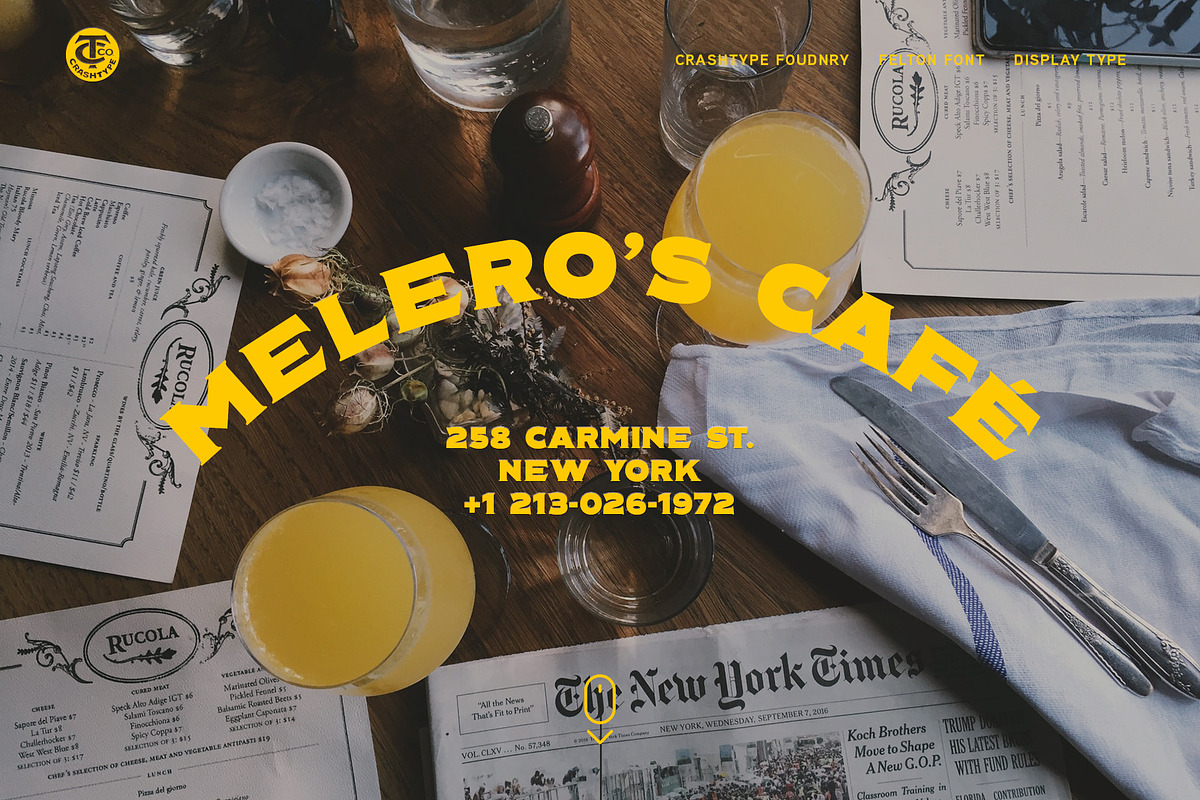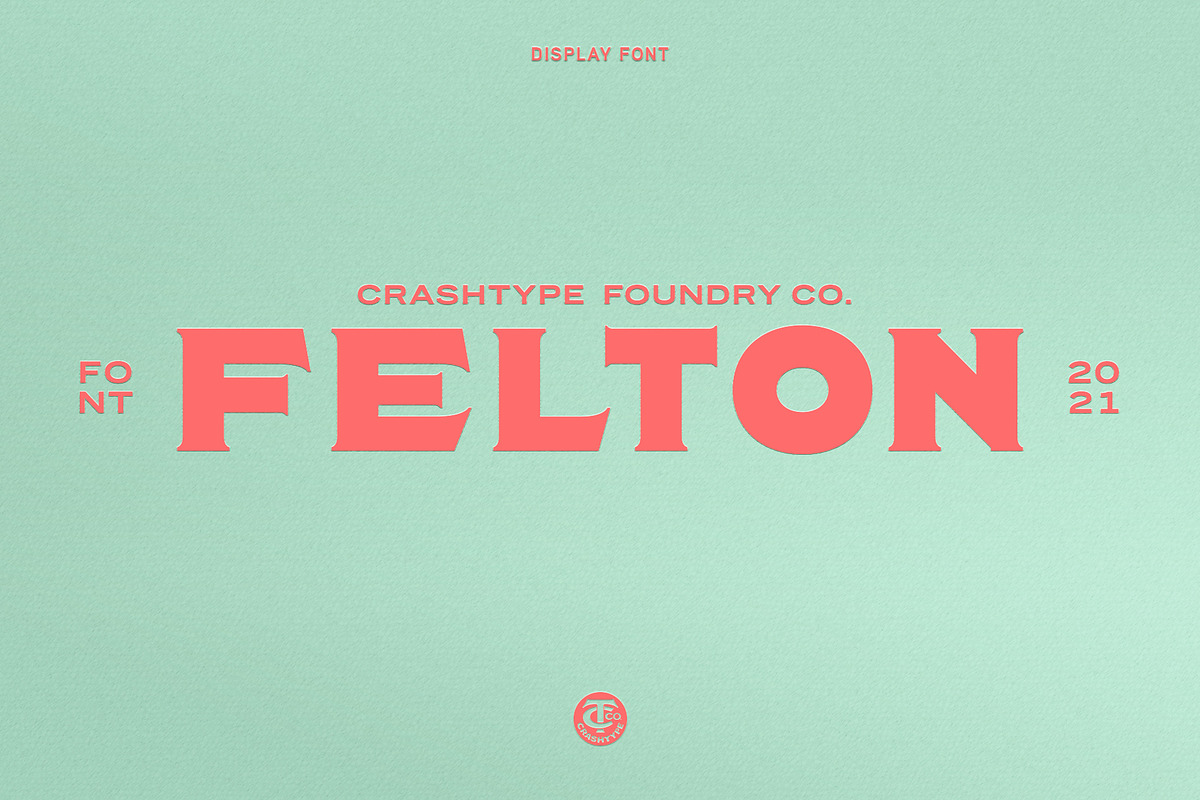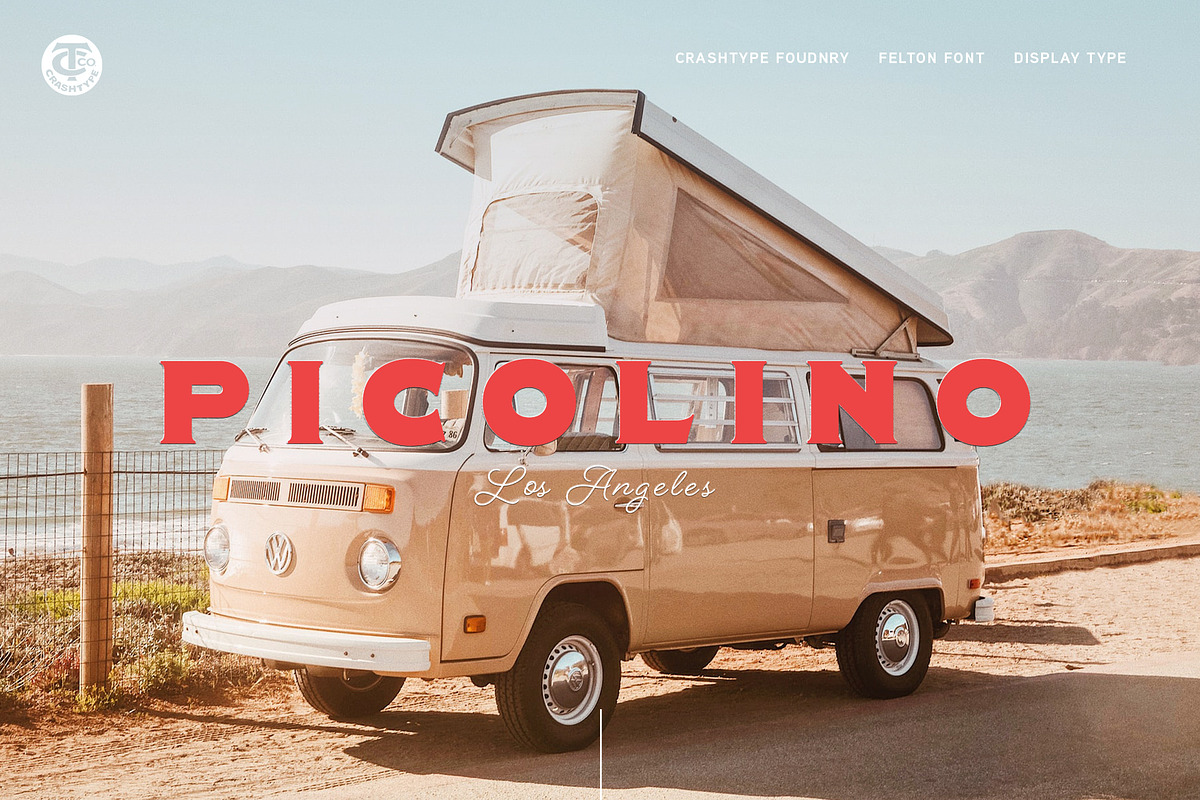
Felton Font
The Felton font works great in branding, logos & headlines. Uppercase / One weight / Numbers & Punctuation. I really hope you enjoy using it!